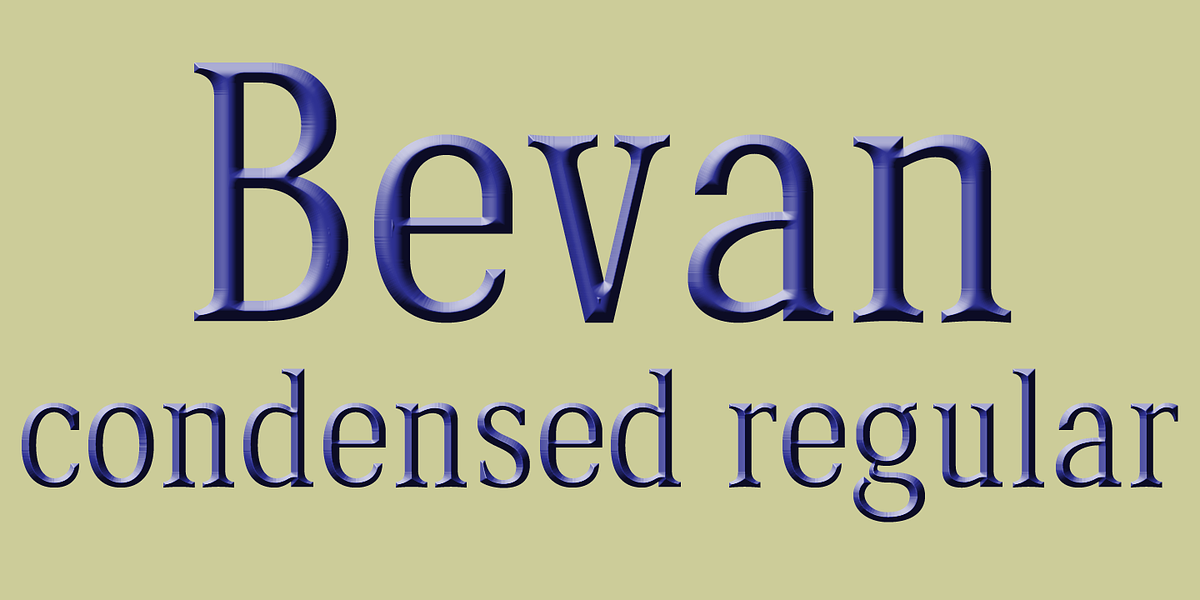
Bevan Condensed
Bevan Condensed is a serif typeface designed for display purposes. It draws inspiration from Melior, but with a condensed structure. This makes it suitable for headlines and branding where a bold and elegant presence is desired.